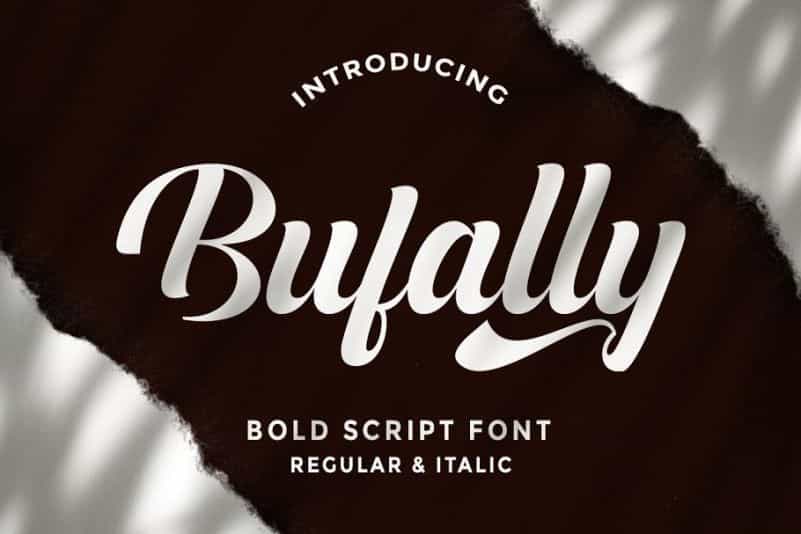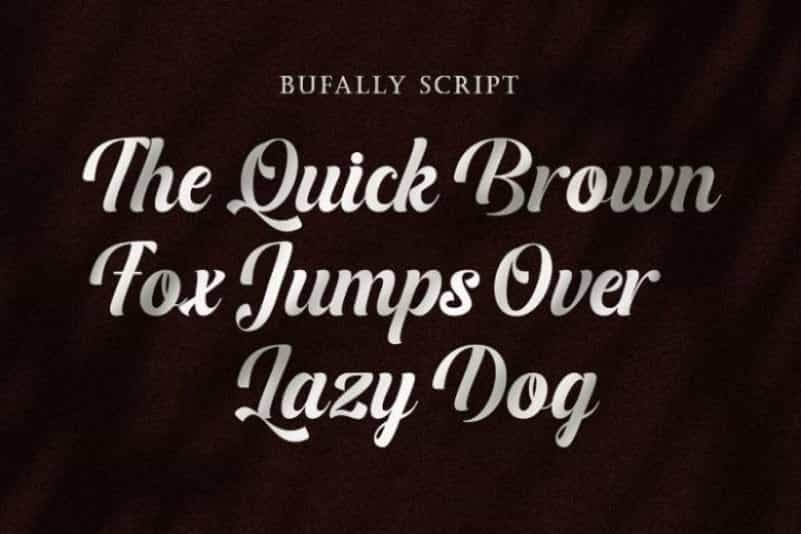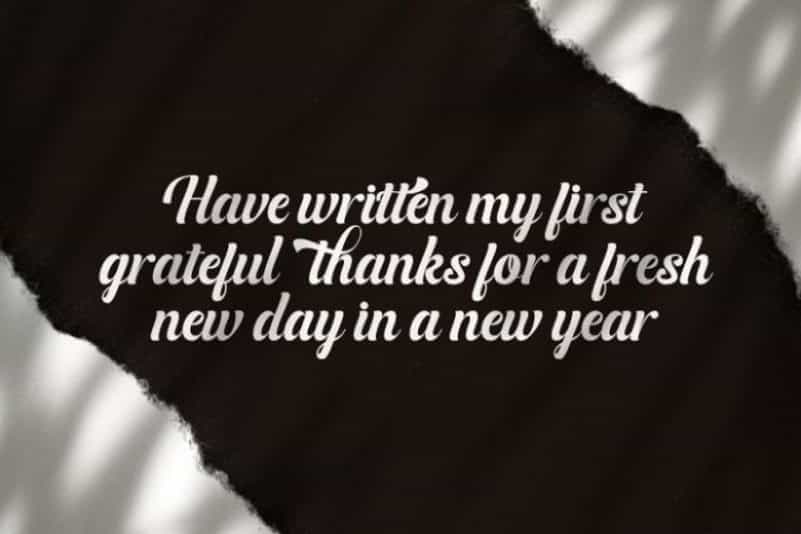
Bufally is a script typeface that has been very carefully written in the style of stylist font, it is clean and handwritten. Perfect for branding, logos, handwritten quotes on the product packaging and headers of the posters. It can also be used as a book cover titles or in special events like social media books covers etc.